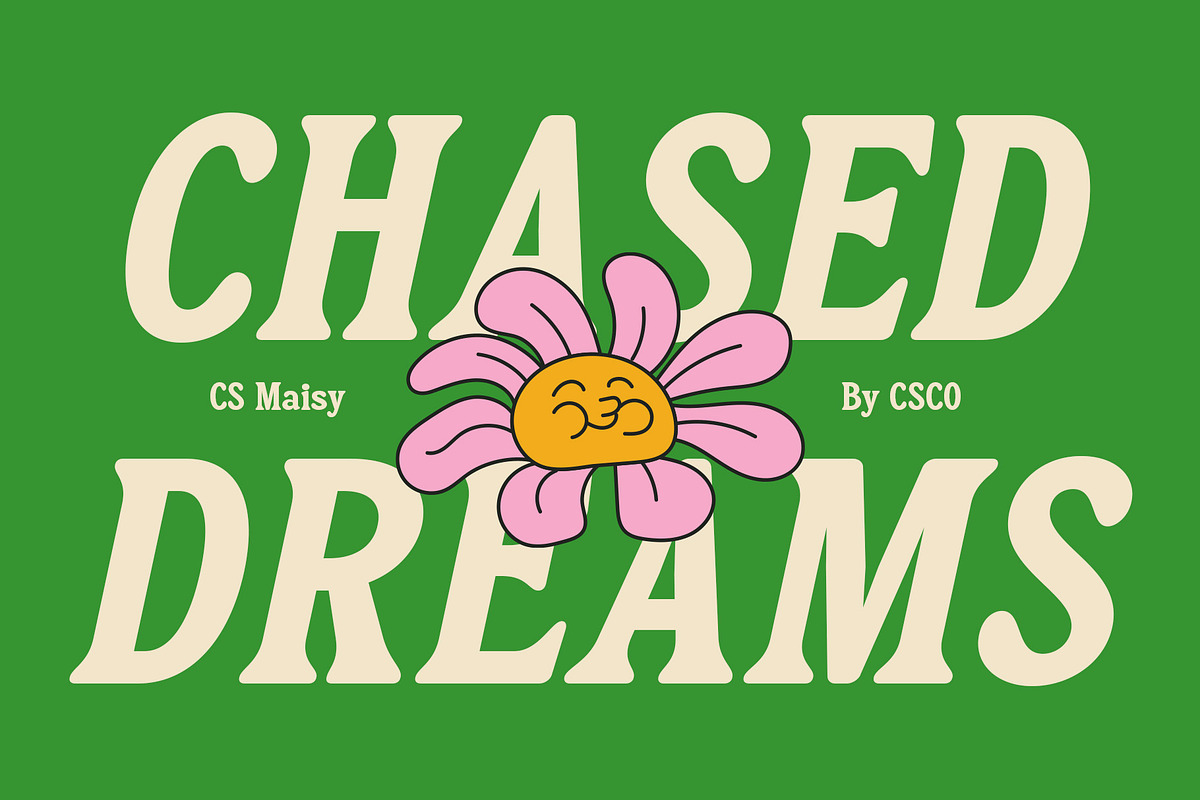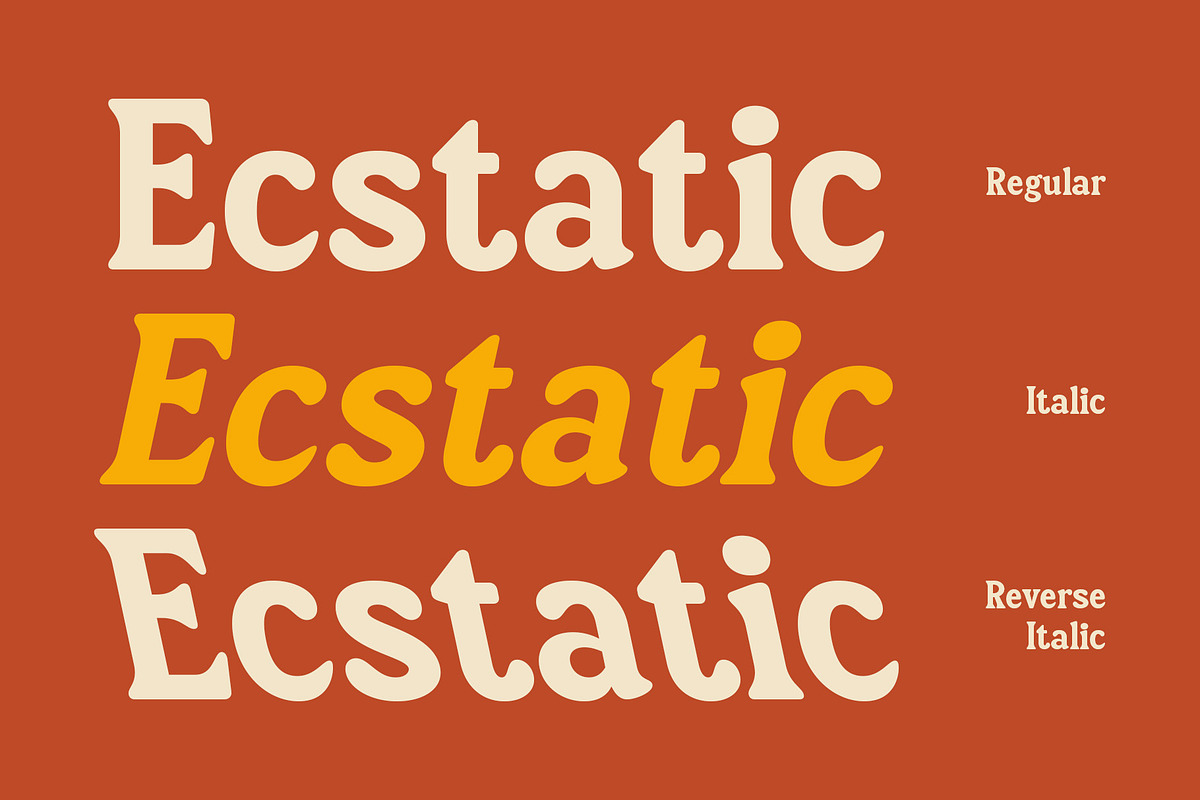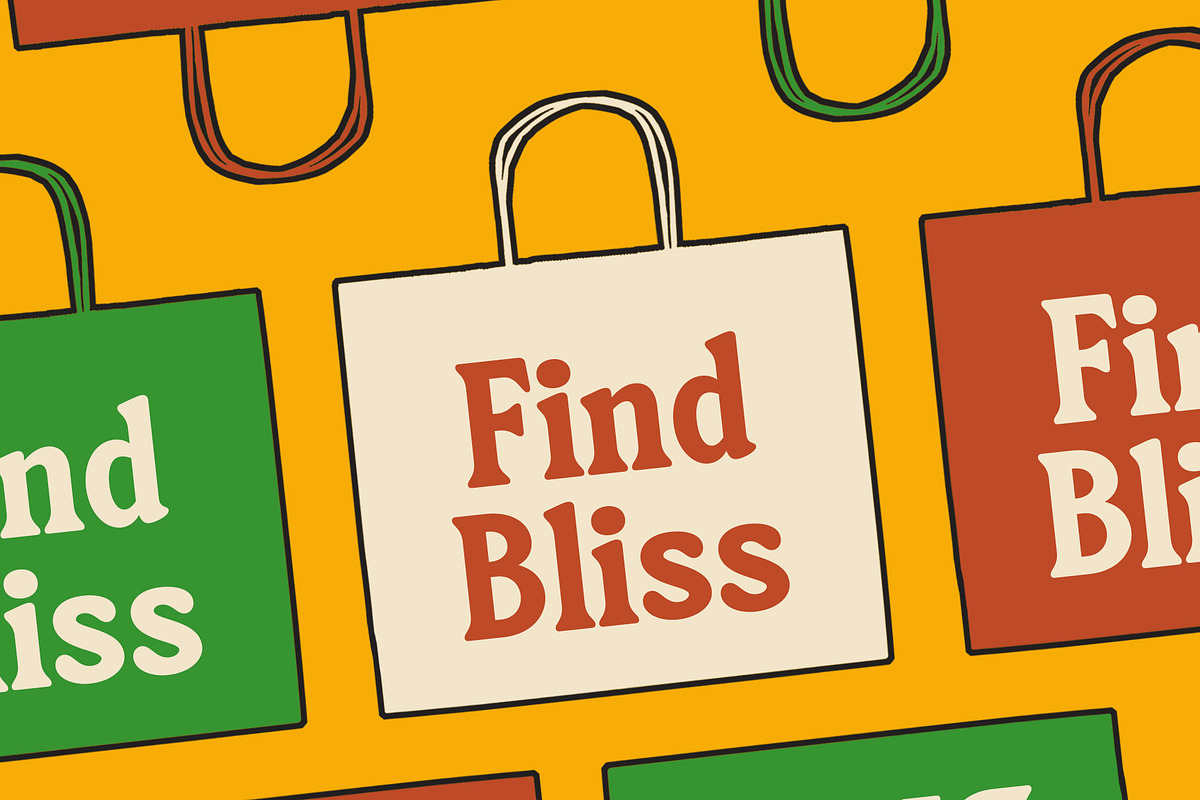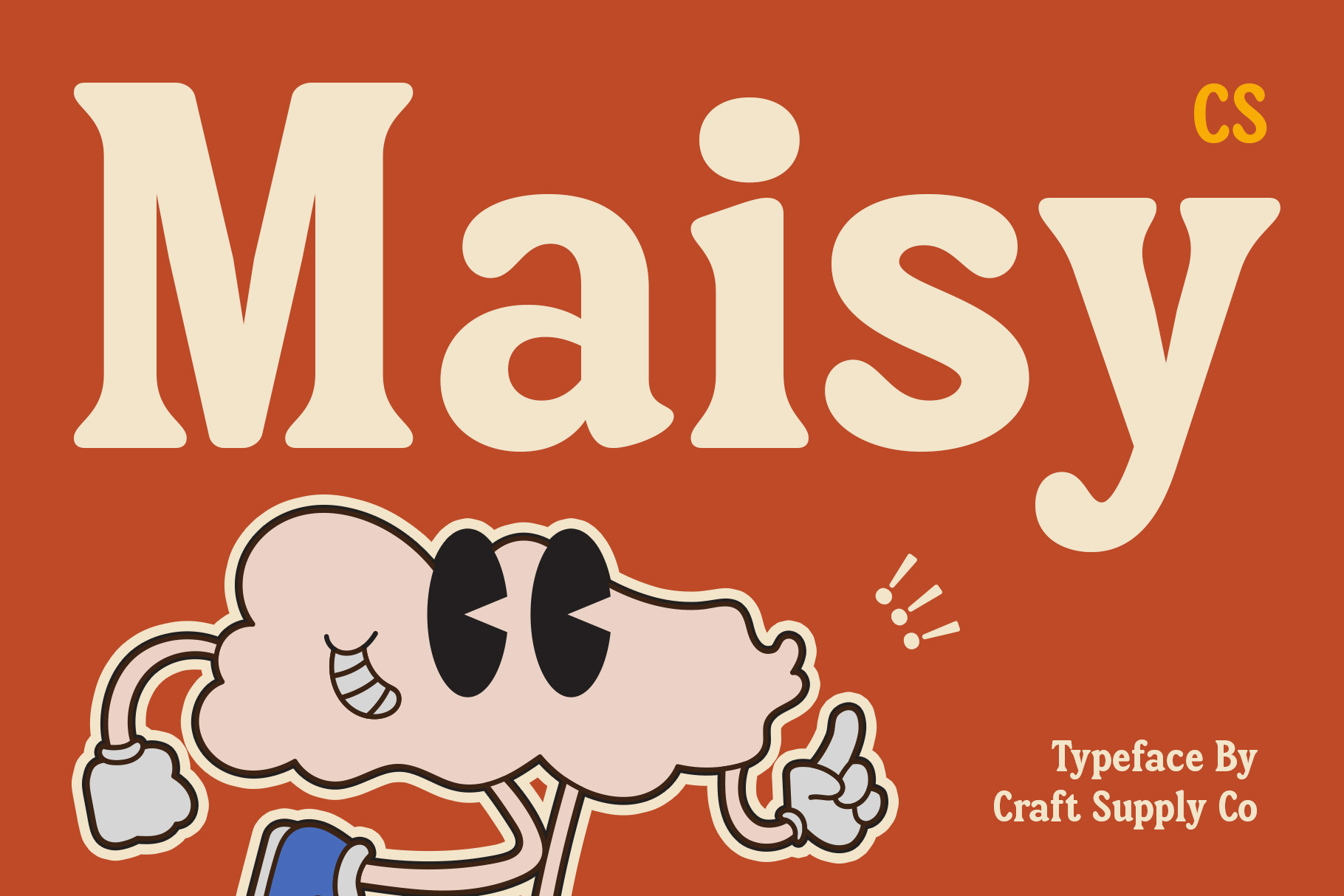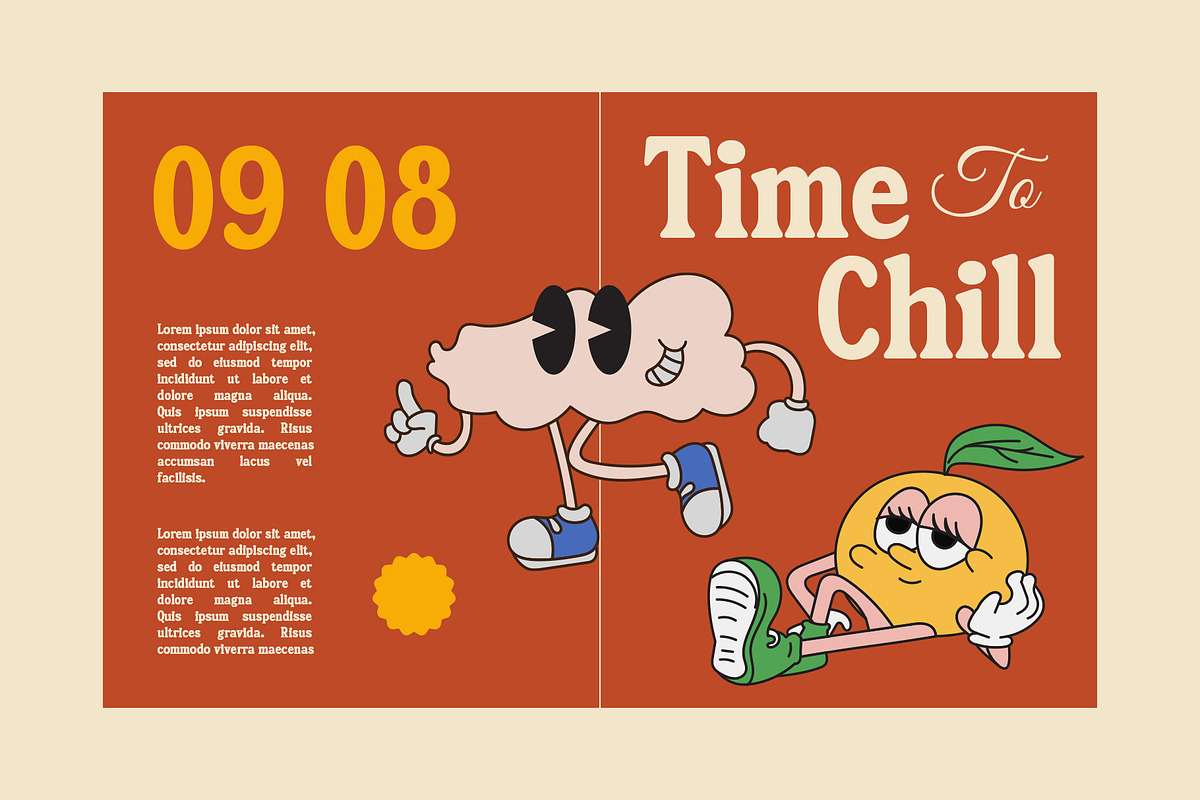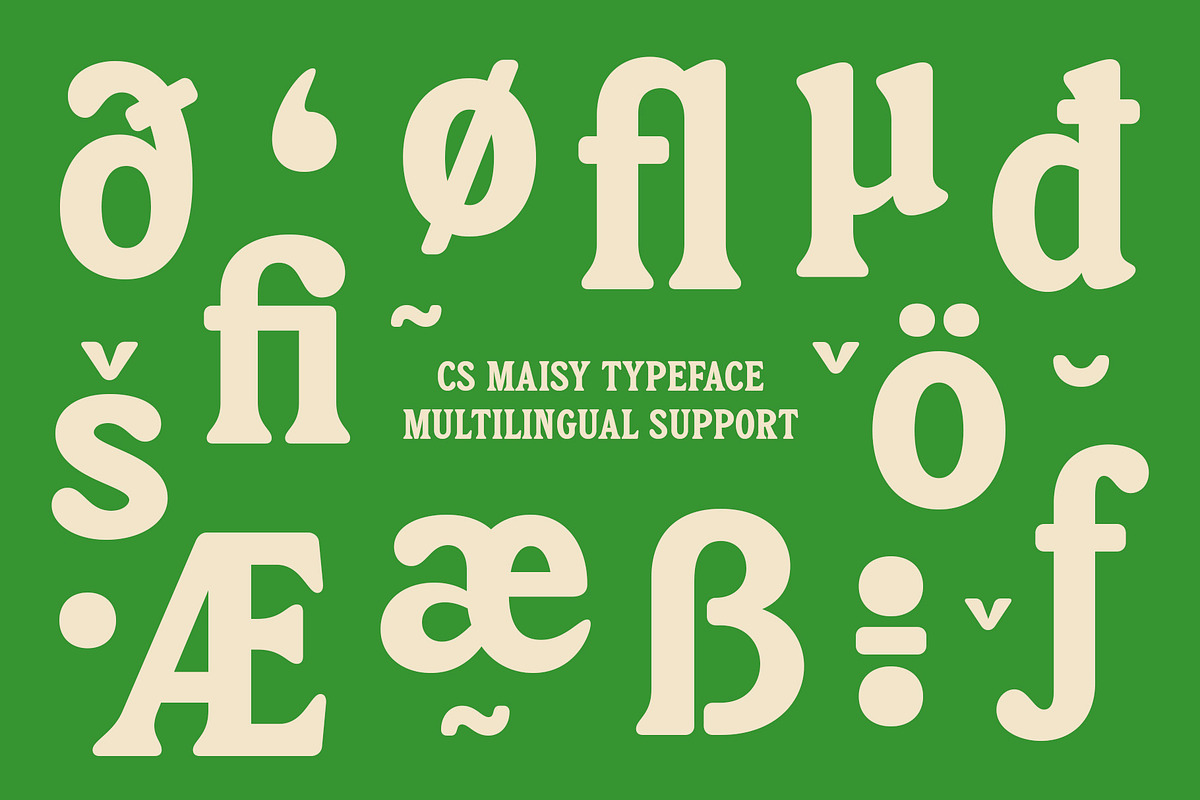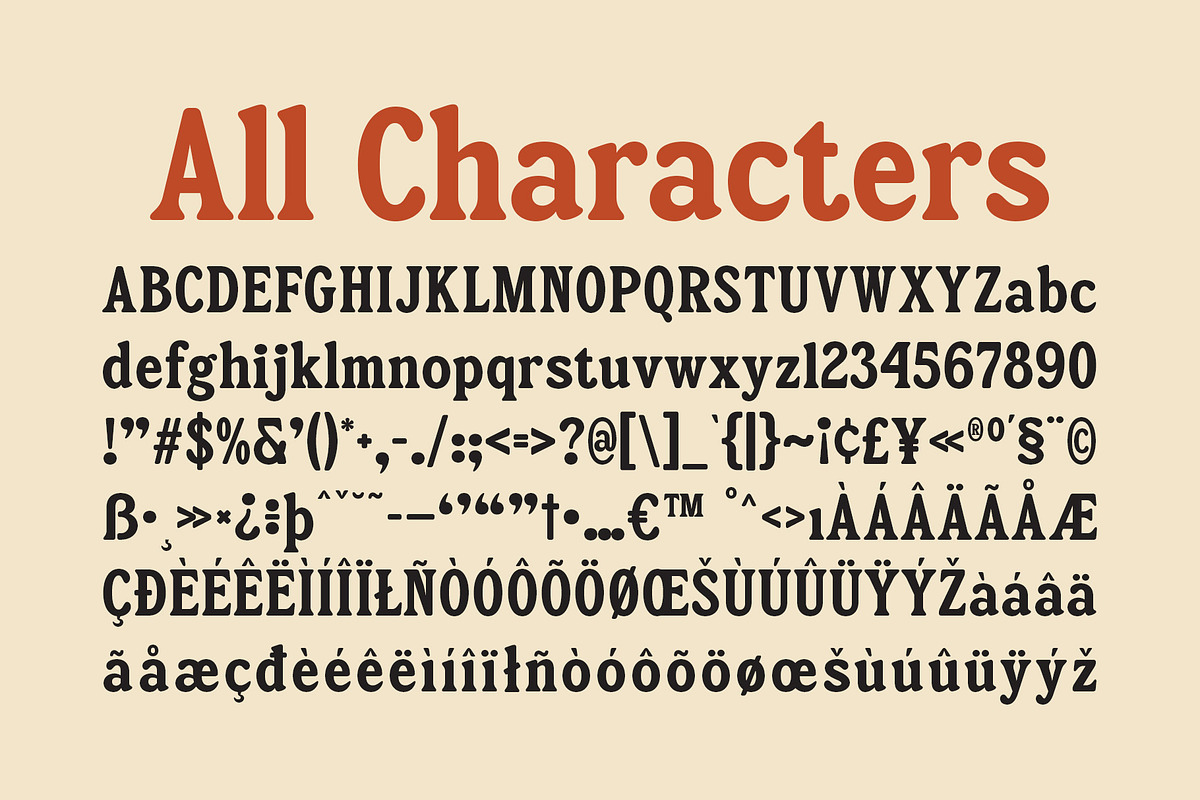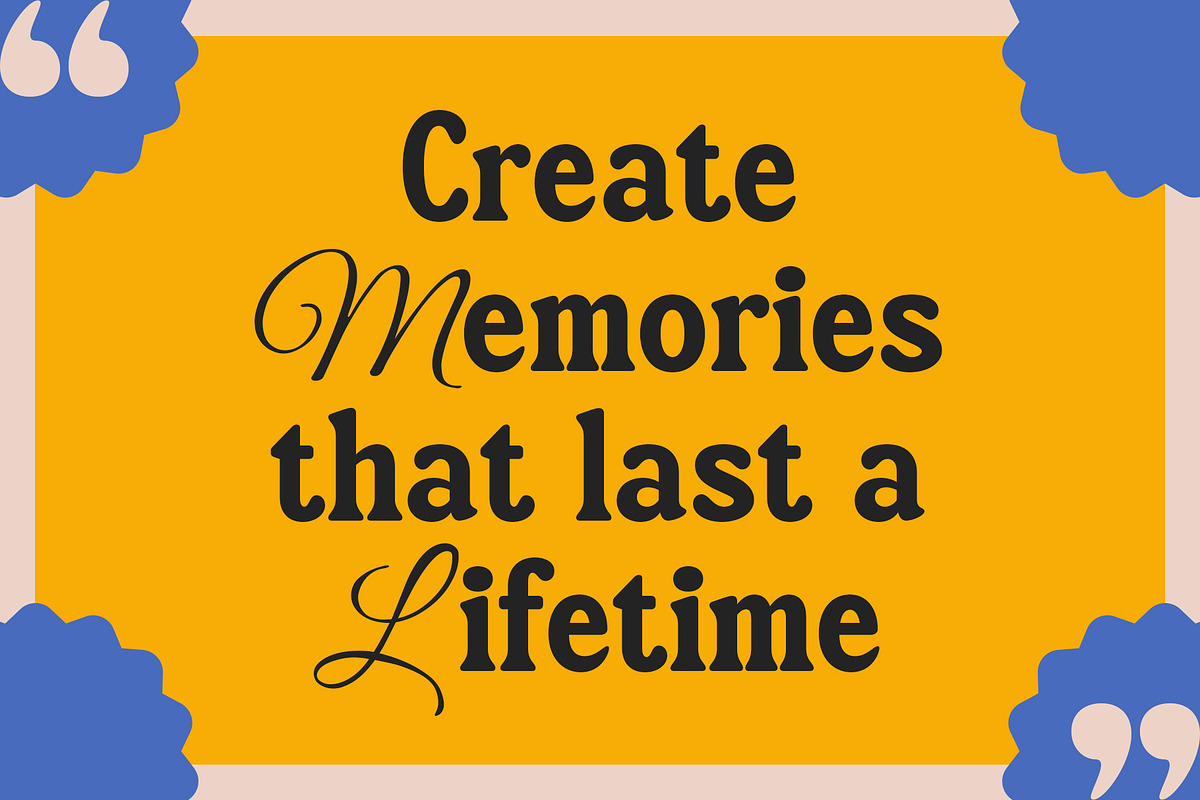
CS Maisy – Retro Font
CS Maisy – Retro Font: Embrace the Bold Elegance of the 90s
Bold Classic Serif with a 90s Retro Flair CS Maisy – Retro Font is a bold classic serif typeface that seamlessly blends timeless elegance with a strong 90s retro influence. This font captures the essence of the past with its thick letterforms and sharp edges, evoking a powerful sense of nostalgia. The design pays homage to the distinctive visual styles of the 1990s, making it a perfect choice for projects that aim to reminisce or recreate the vibrant energy of that iconic decade.
Thick Letterforms for Maximum Impact Featuring robust and substantial letterforms, CS Maisy – Retro Font commands attention in any design. The thick strokes not only enhance readability but also impart a sense of strength and confidence. The sharp edges add a dynamic contrast, ensuring that each character stands out with clarity and precision. This combination of boldness and sharpness makes CS Maisy ideal for headlines, titles, and any text that needs to make a strong visual statement.
Timeless Elegance Meets Nostalgic Charm CS Maisy – Retro Font masterfully combines the refined elegance of classic serif typography with the playful nostalgia of the 90s. The balanced proportions and clean lines maintain a sophisticated appearance, while the retro elements infuse the font with character and charm.